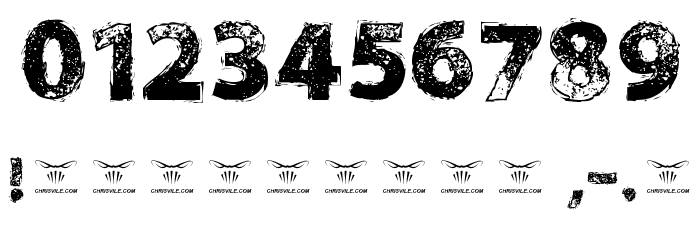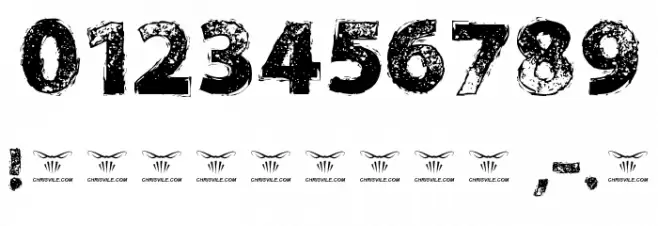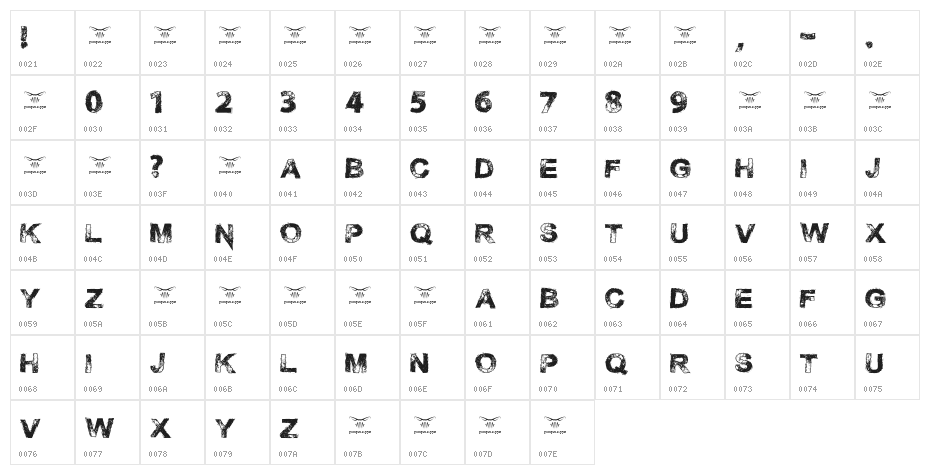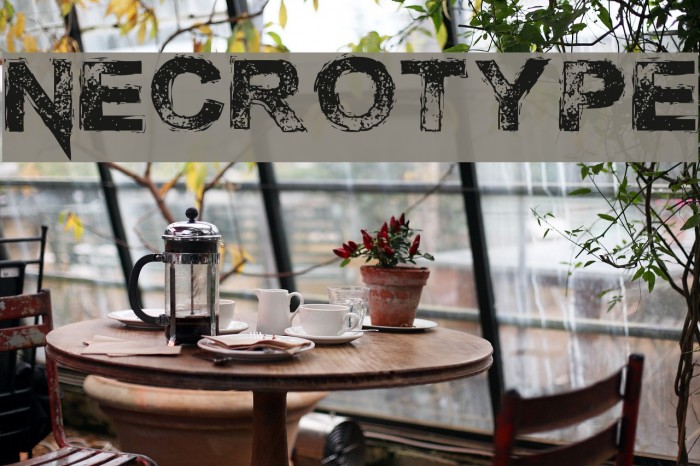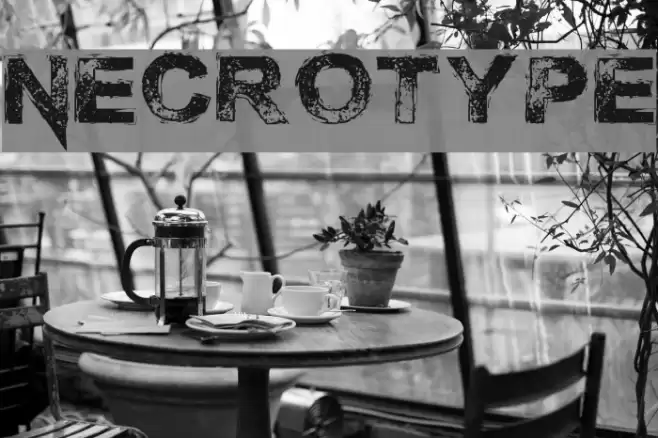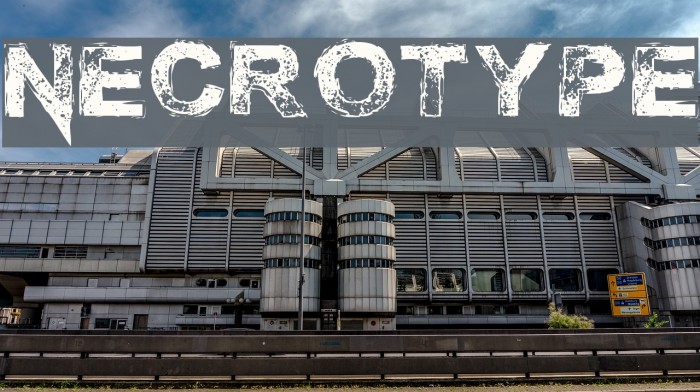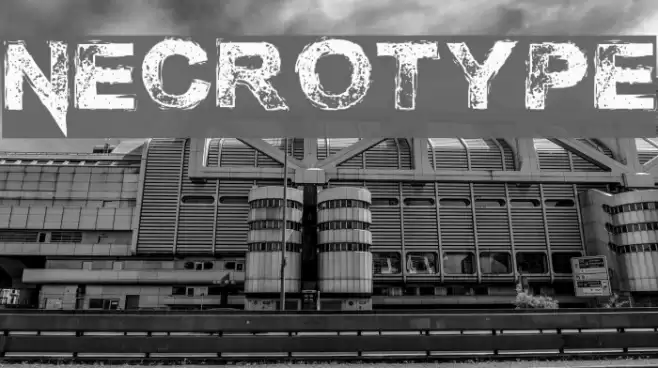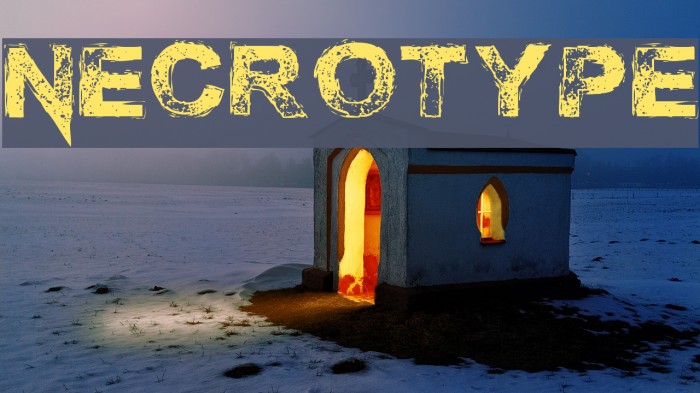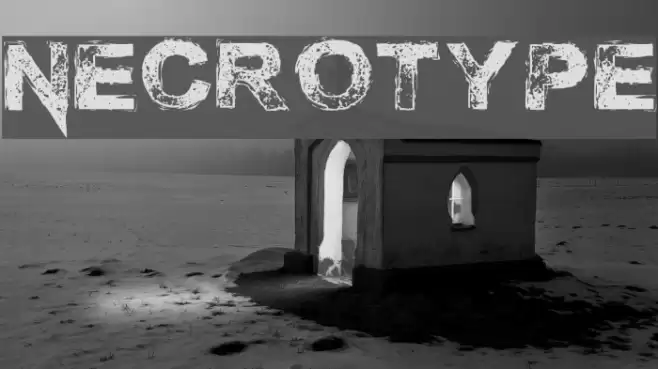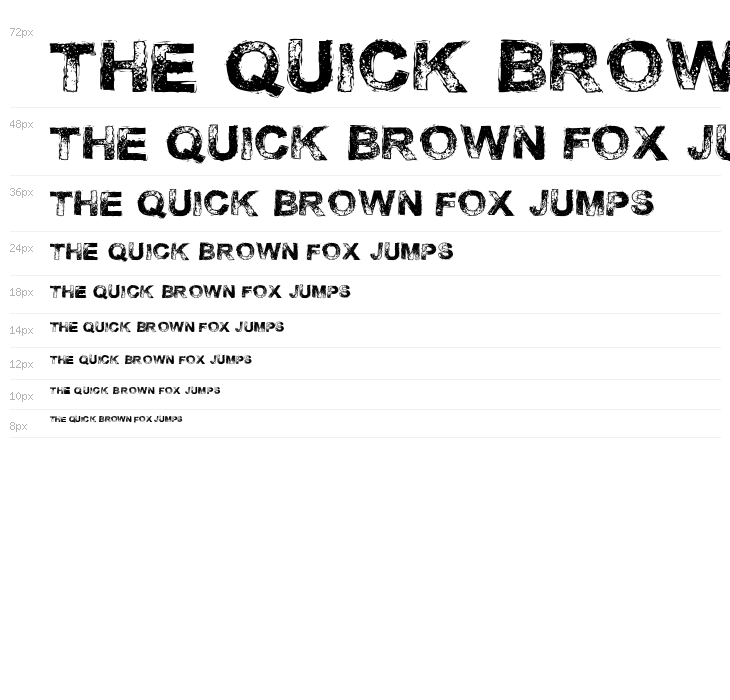
Necrotype Font
Necrotype Description
This font features a distressed, grunge style with a bold and rugged appearance. Each character is designed with a textured, worn-out look, giving it a unique and edgy feel. The uppercase letters are prominent, with a consistent thickness that adds to the font's boldness. The numbers and special characters maintain the same distressed aesthetic, ensuring a cohesive look across all elements. This font is ideal for projects that require a strong, impactful visual presence, such as posters, album covers, or branding materials that aim to convey a sense of rebellion or nonconformity.
| Overall Style | Grunge, Edgy |
| Proposed Projects | Ideal for posters, album covers, branding materials, and any design needing a rebellious or edgy vibe. |